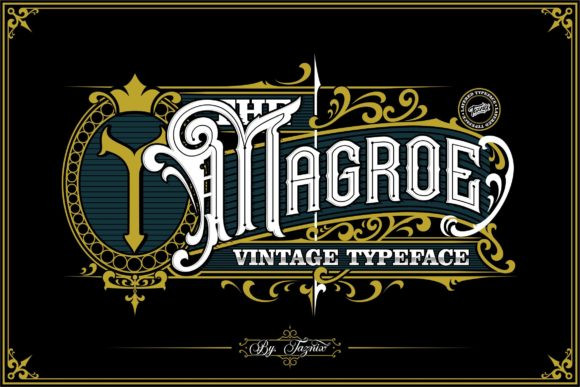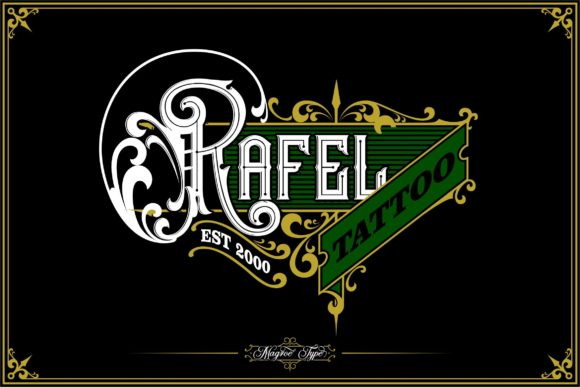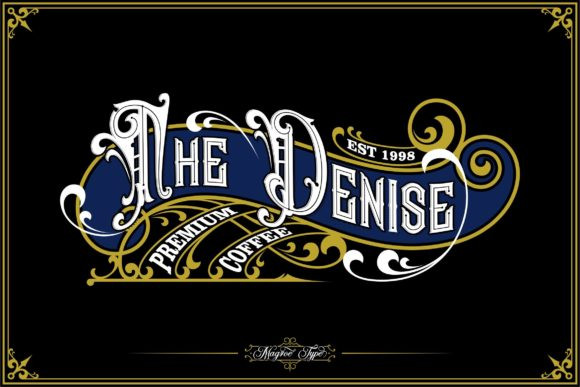
Magroe Font
Magroe FontMagroe simplifies elegance into one truly outstanding font. Use this gorgeous and unique font to bring any DIY project to life!
Magroe is perfect for branding projects, logo, social media posts, advertisements, product packaging, product designs, label, photography, watermark, invitation, stationery and any projects that need retro & vintage taste.